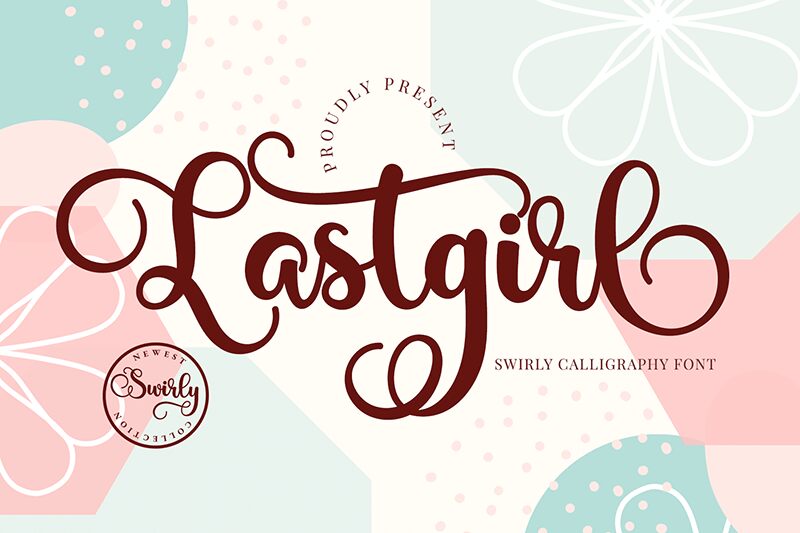
Lastgirl font, a mesmerizing script font designed by Airotype Studio, offers an artistic and elegant touch to your design projects. This free font is perfect for those looking to add a sophisticated and decorative feel, with its expressive and flowing style. Lastgirl combines modern calligraphy with a signature-like appearance, creating a truly remarkable visual experience.
Widely applicable, this font is an excellent choice for wedding invitations, greeting cards, logos, and branding. It also works wonders for headlines, posters, quotes, and packaging. Lastgirl adds a refined and ornamental touch to book covers, event promotions, and social media graphics.